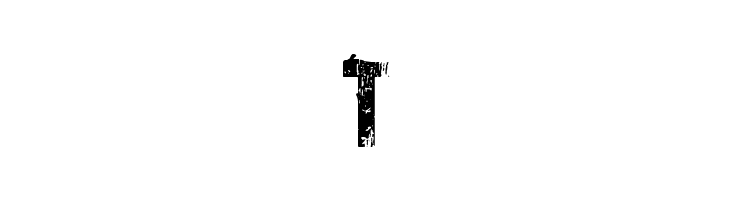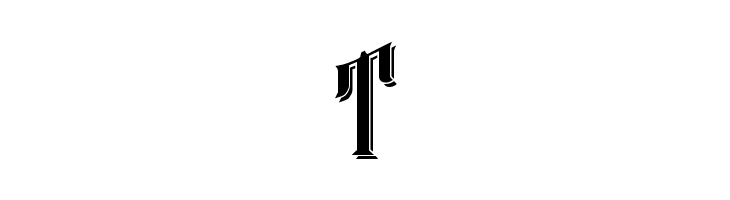
• Vtks Belinha
An elegant script font with ornate swirls and calligraphic style.
• Vtks Classical Hit
A bold, gothic-inspired font with high contrast and ornate serifs.
• VTKS COMIC
A playful, comic-inspired font with bold, irregular strokes and a hand-drawn feel.
• vtks crazy time
A bold, futuristic font with geometric shapes and sharp angles.
• vtks crazy time bold
Bold, geometric font with a futuristic style.
• vtks distress
A bold, distressed font with a grunge aesthetic and rugged texture.
• Vtks Entulho
A distressed, grunge-style font with a textured, hand-drawn appearance.
• VTKS Estilosa
A decorative font with ornate swirls and embellishments, offering a bold and elegant appearance.
• Vtks Garota Bonita
An ornate, hand-drawn font with swirling, brush-like strokes and intricate details.
• VTKS HIGHLIGHT
A bold, distressed font with a grunge, urban aesthetic.